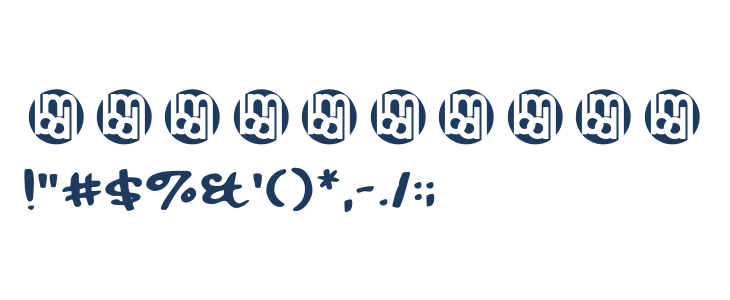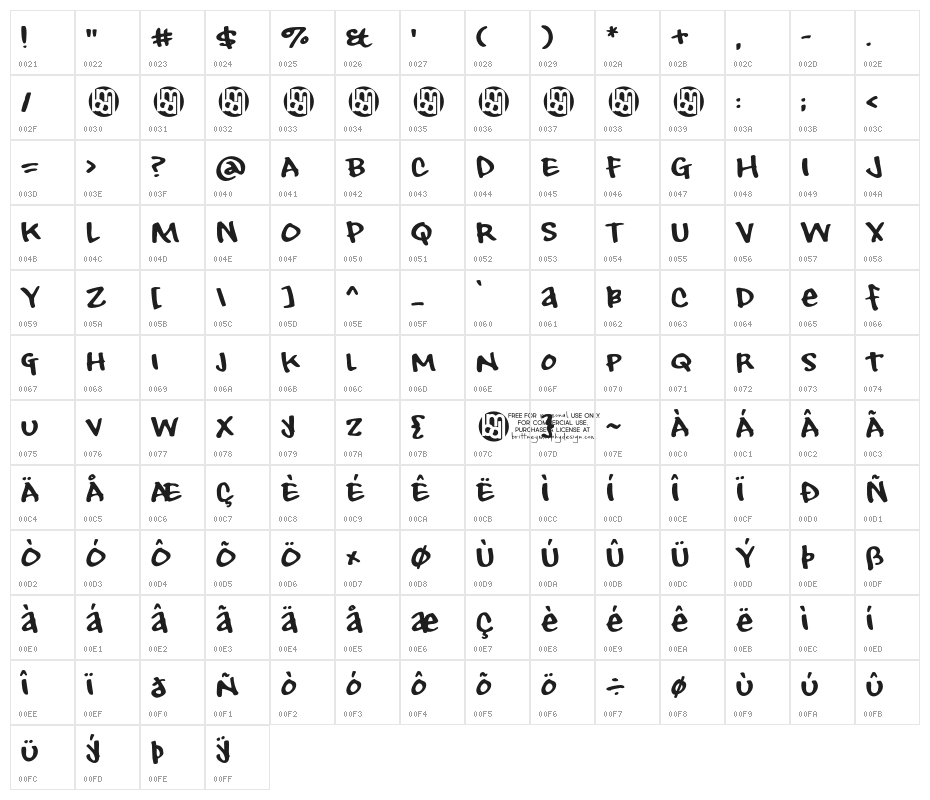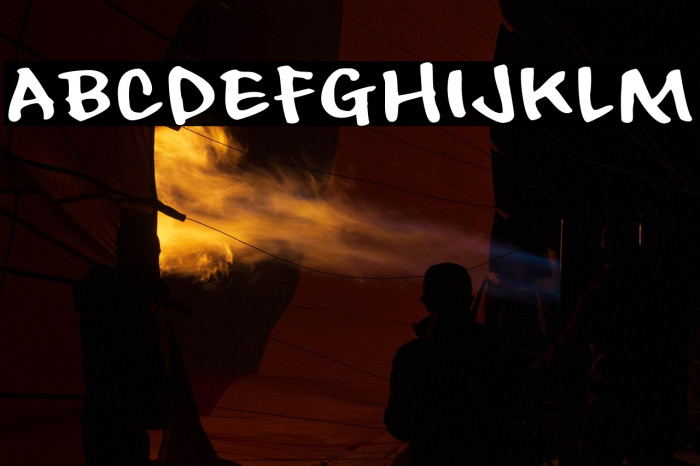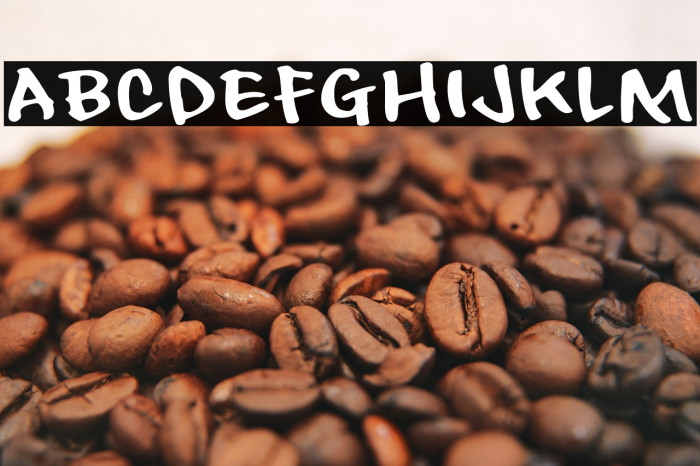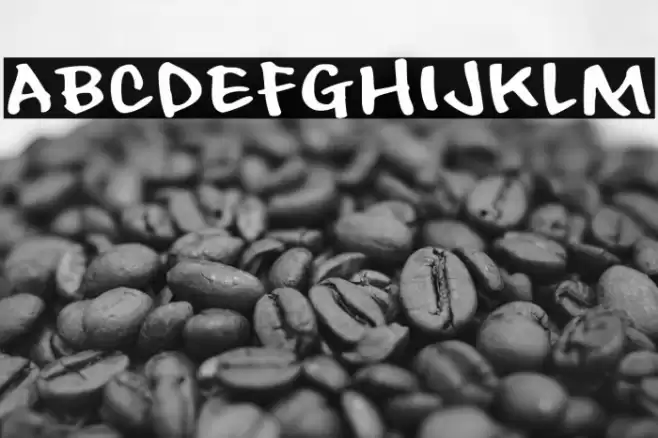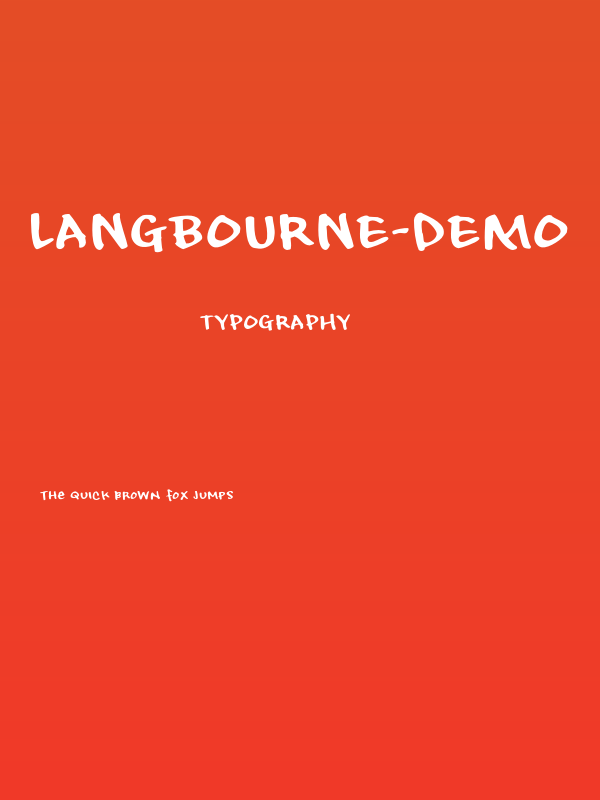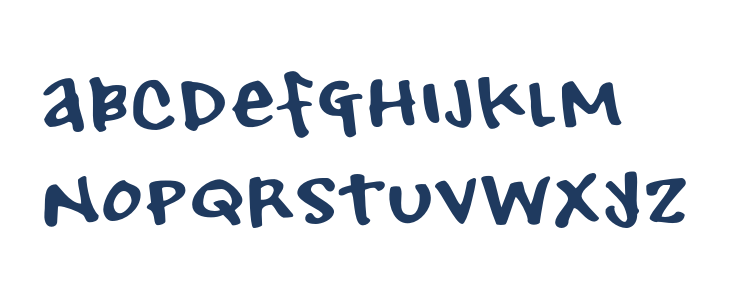
Langbourne-Demo Font
Langbourne-Demo Description
This font features a playful and bold handwritten style, characterized by its thick strokes and slightly irregular shapes, giving it a casual and friendly appearance. The uppercase and lowercase letters maintain a consistent flow, with rounded edges and a slight slant that adds to its informal charm. The numbers and special characters are designed to match the overall aesthetic, ensuring a cohesive look across all text elements. The font's unique personality makes it suitable for projects that require a touch of whimsy and creativity.
| Proposed Projects | Ideal for children's books, greeting cards, playful branding, and creative posters. |